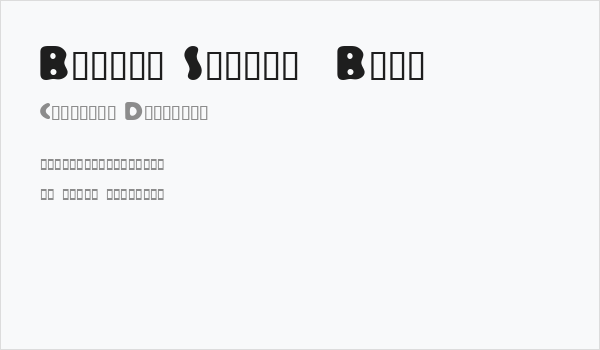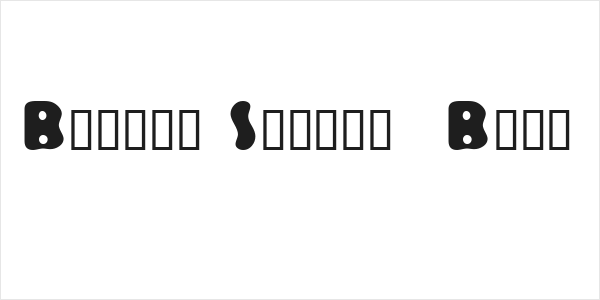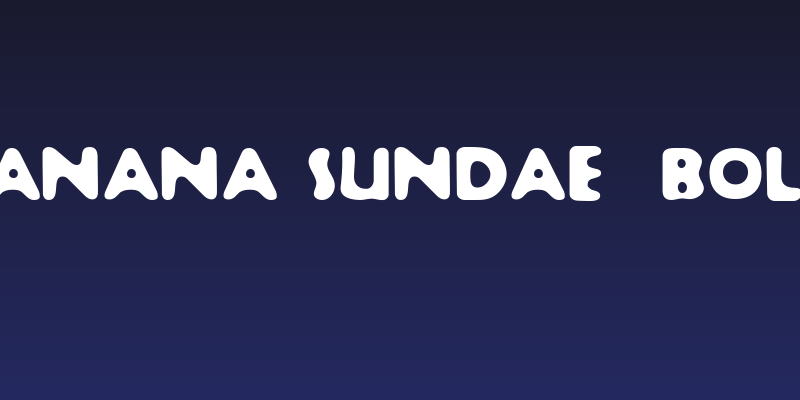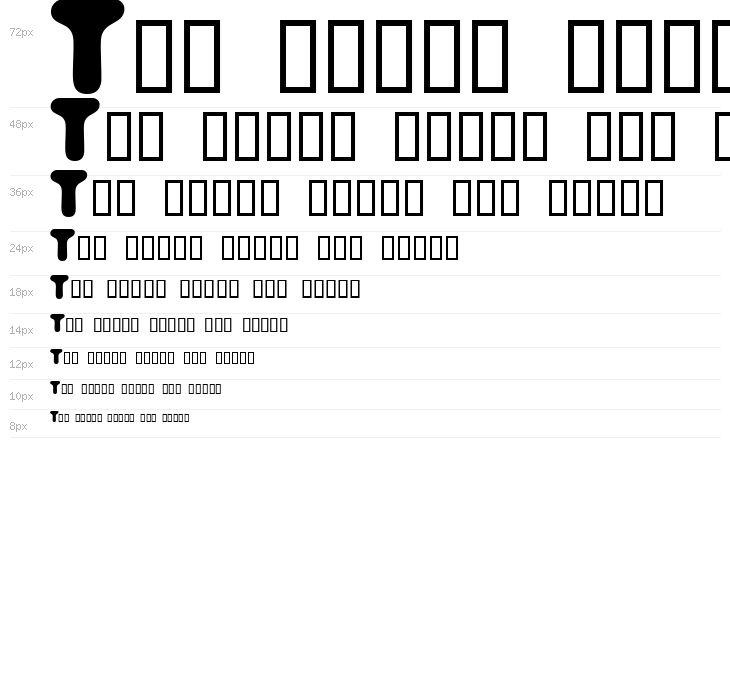
Banana Sundae Bold Font
Banana Sundae Bold Description
This playful and bold font features rounded, bubbly characters that exude a sense of fun and whimsy. The letters are thick and substantial, with a consistent stroke width that gives them a solid appearance. The overall design is reminiscent of retro styles, with a modern twist that makes it suitable for contemporary uses. The characters are evenly spaced, ensuring readability while maintaining a cohesive look. This font is perfect for projects that require a touch of humor and lightheartedness, making it ideal for children's books, playful branding, or any creative endeavor that seeks to capture attention with its unique style.
| Overall Style | Playful, Retro, Modern |
| Proposed Projects | Ideal for children's books, playful branding, posters, and creative designs that need a whimsical touch. |